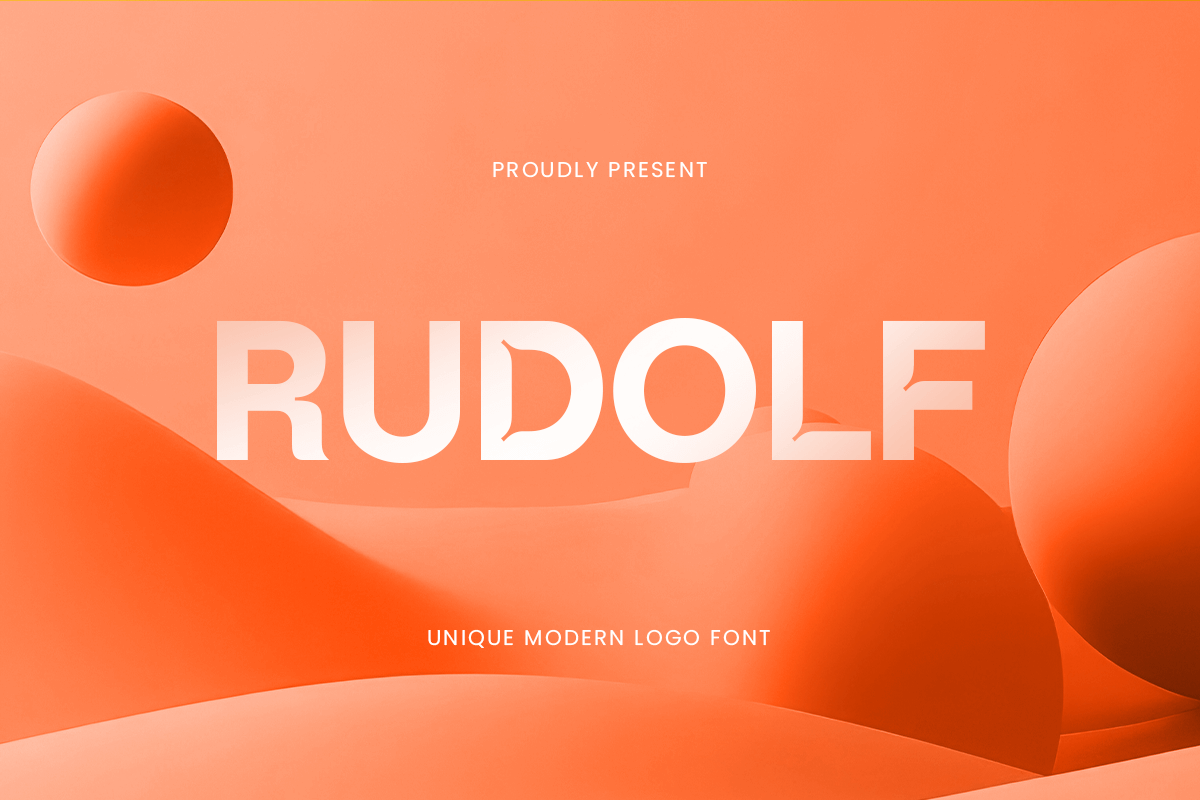
Rudolf
-Unique Modern Logo FontRudolf - Unique Modern Logo Font
Rudolf is a unique modern font designed to give your branding a striking and memorable identity. With sleek lines and stylish structure, it’s perfect for logos, product labels, startup branding, digital interfaces, and packaging that demands attention.
Rudolf blends clean geometry with subtle quirks, making it versatile for both professional and experimental uses. It creates a bold yet refined impression, ideal for those who want to push a brand forward while staying elegant and current.
Whether you’re crafting a tech brand, minimalist design, or creative visual system, Rudolf brings modern personality to your typography.
Rudolf – Unique Modern Logo Font Features
Distinctive modern letterforms for standout branding
Great for logos, tech, packaging, and creative visuals
Turn heads and build bold brands with Rudolf — where unique style meets modern design.